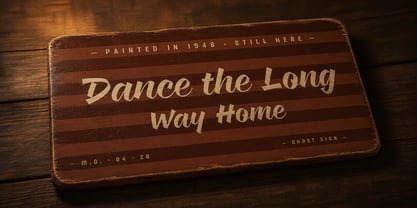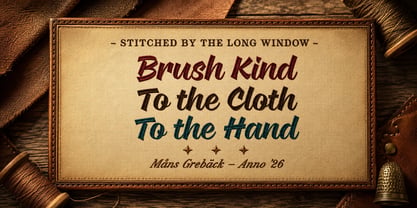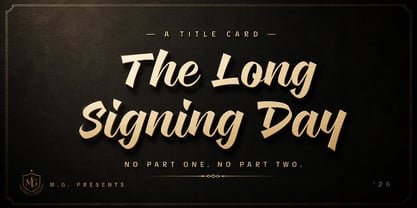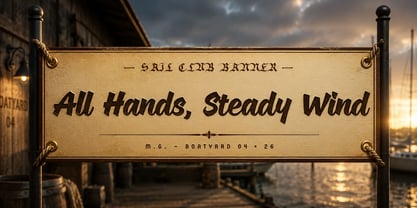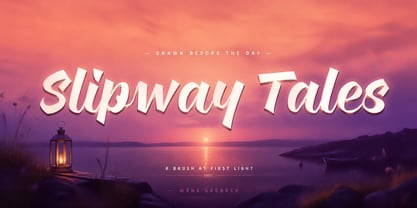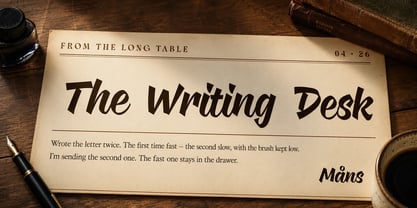
Slipway Tales
von Mans Greback
Die Schriftfamilie Slipway Tales wurde von Måns Grebäck entworfen und von Mans Greback veröffentlicht. Slipway Tales enthält 4 Stile und Familienpaketoptionen. Mehr über diese Familie
Slipway Tales is a bold brush script with thick, flat-tipped strokes and a steady forward lean.
The weight is heavy and even — drawn with a wide brush held at a constant angle, the kind of mark a sign painter would leave on a wooden board. Letters tilt right, connect loosely, and end with a clean cut where the brush lifts. The capitals carry the same body as the lowercase, so a name reads with one voice rather than two.
It sits well above a workshop door, on the side of a wooden crate, on the cover of a paperback that wants to be picked up.
Designed and created by Mans Greback.
The font is built with advanced functionality and guaranteed top-notch quality, containing stylistic and contextual alternates, ligatures and more automatic and manual features; all to give you full control and customizability.
It has extensive lingual support, covering all Latin-based languages, from North Europa to South Africa, from America to South-East Asia. It contains all characters and symbols you'll ever need, including all punctuation and numbers.
Designer: Måns Grebäck
Foundry: Mans Greback